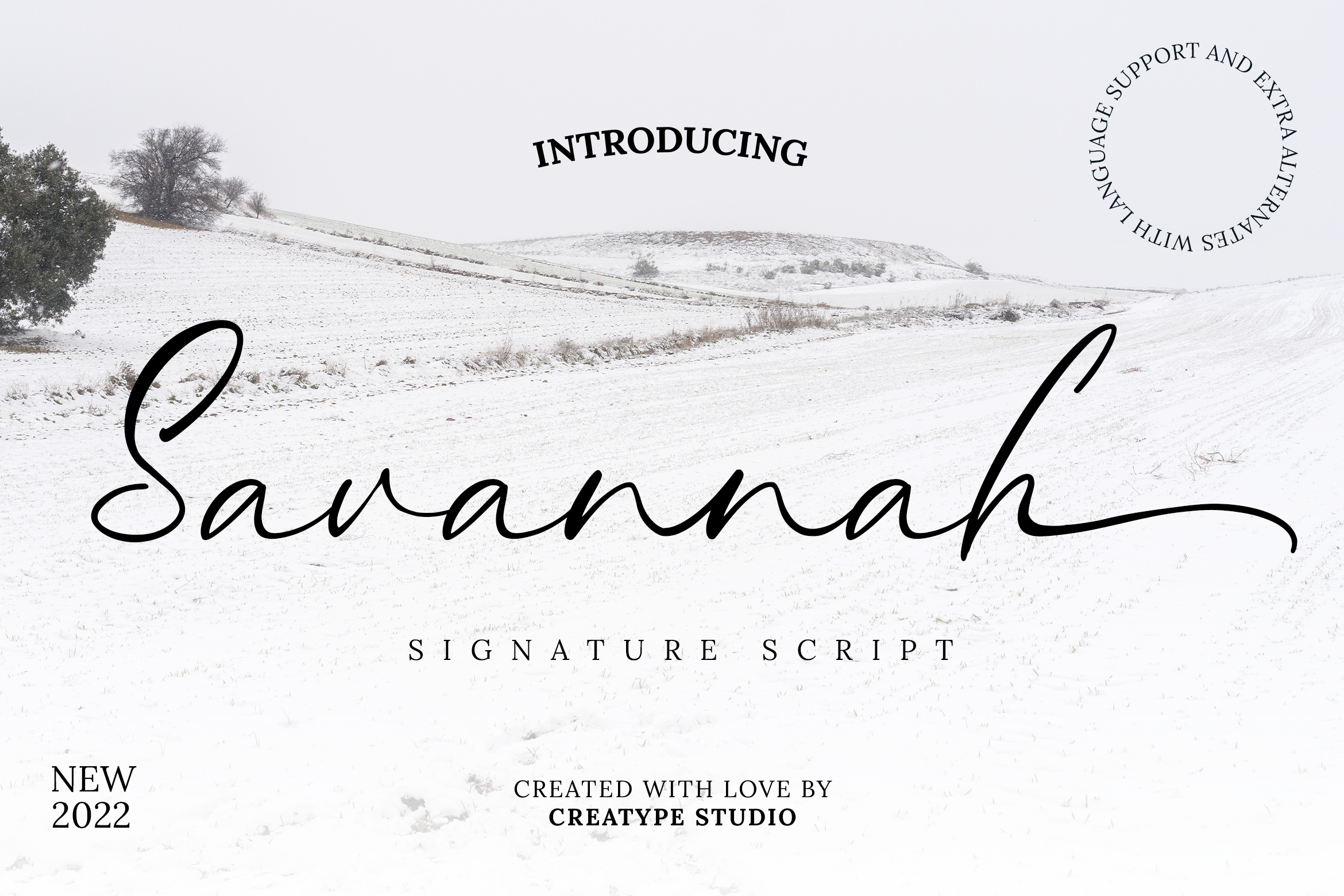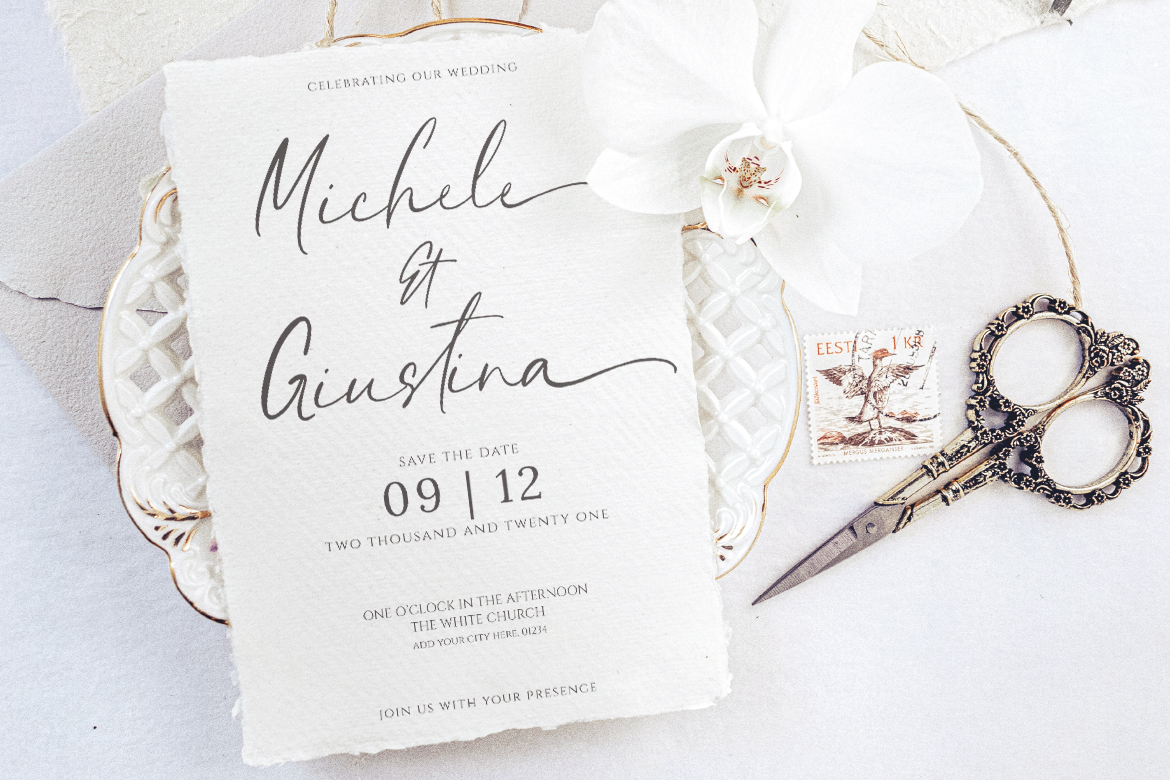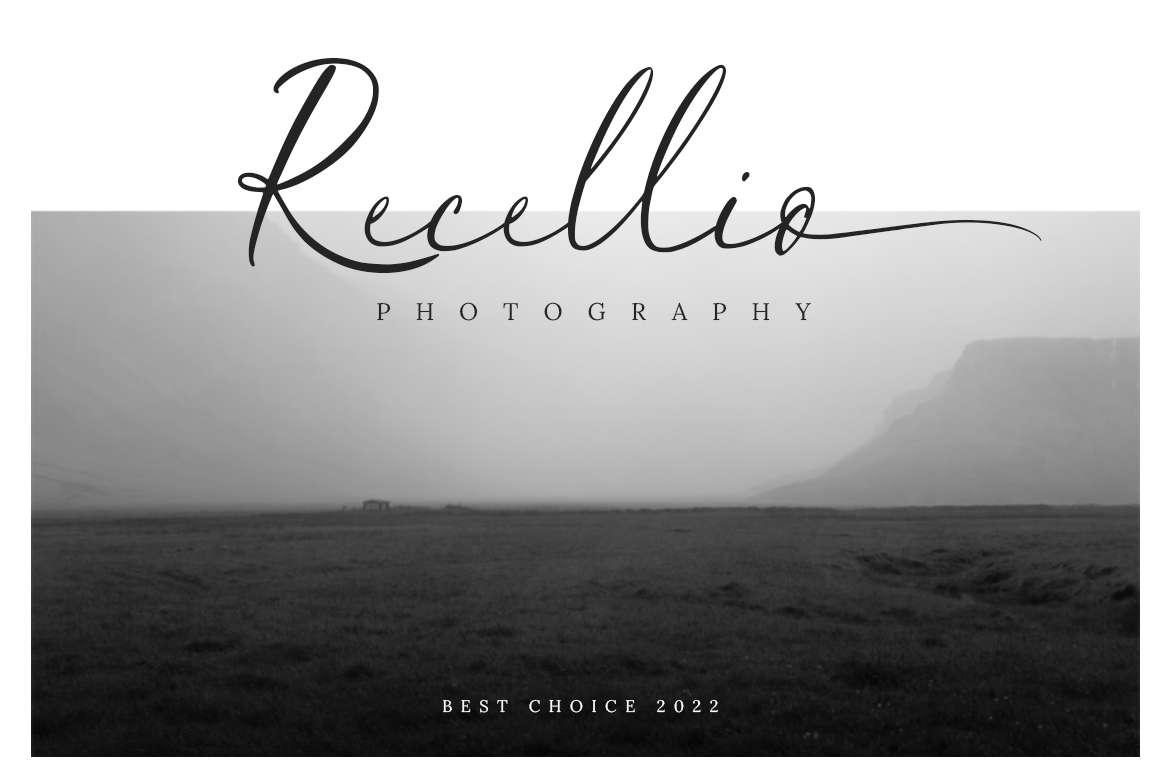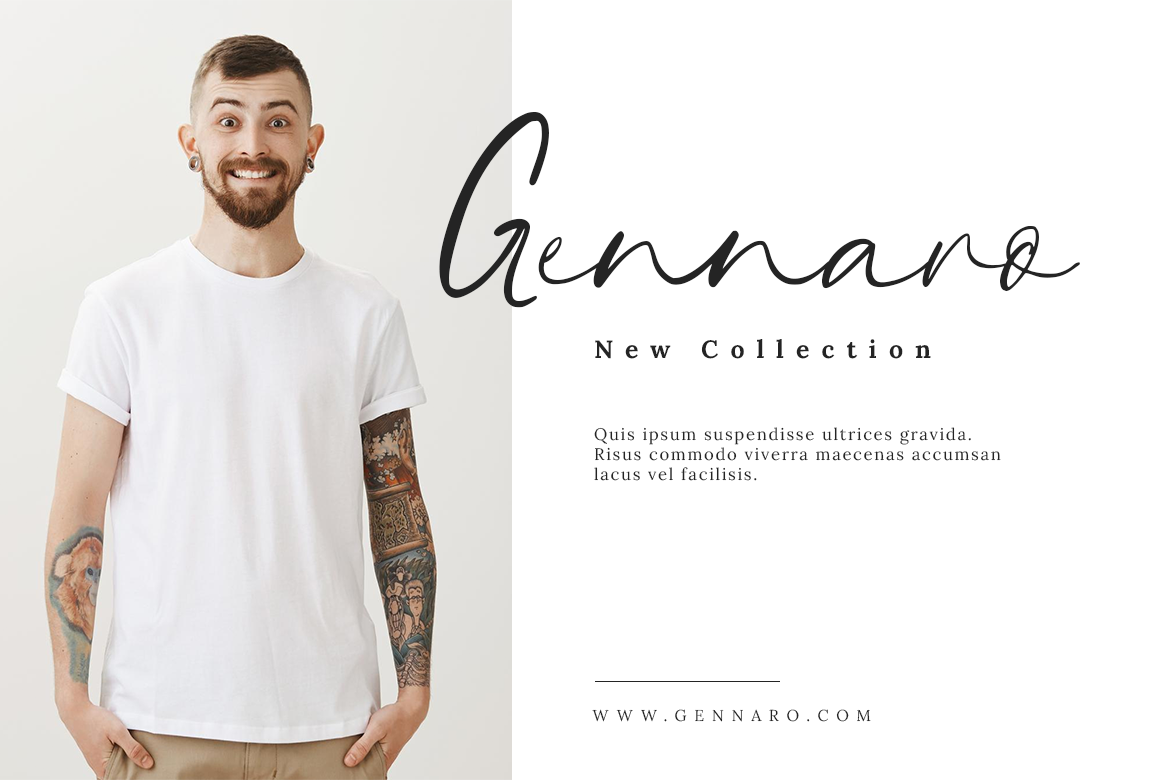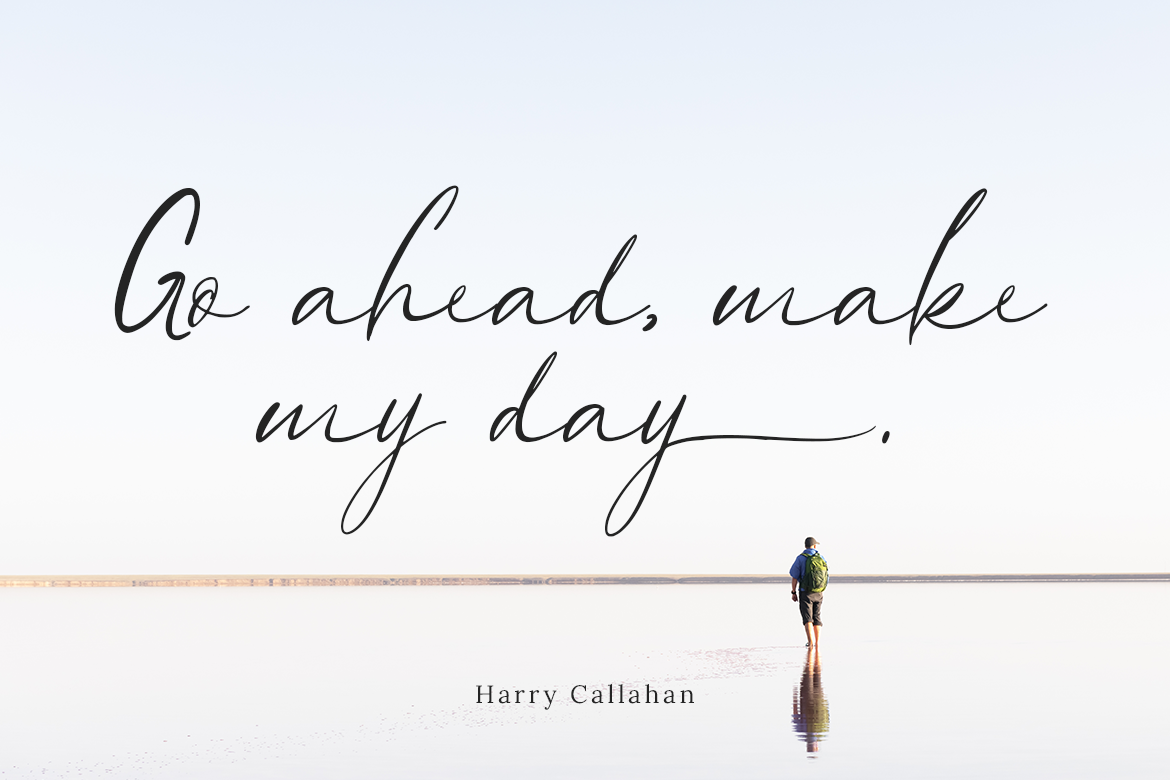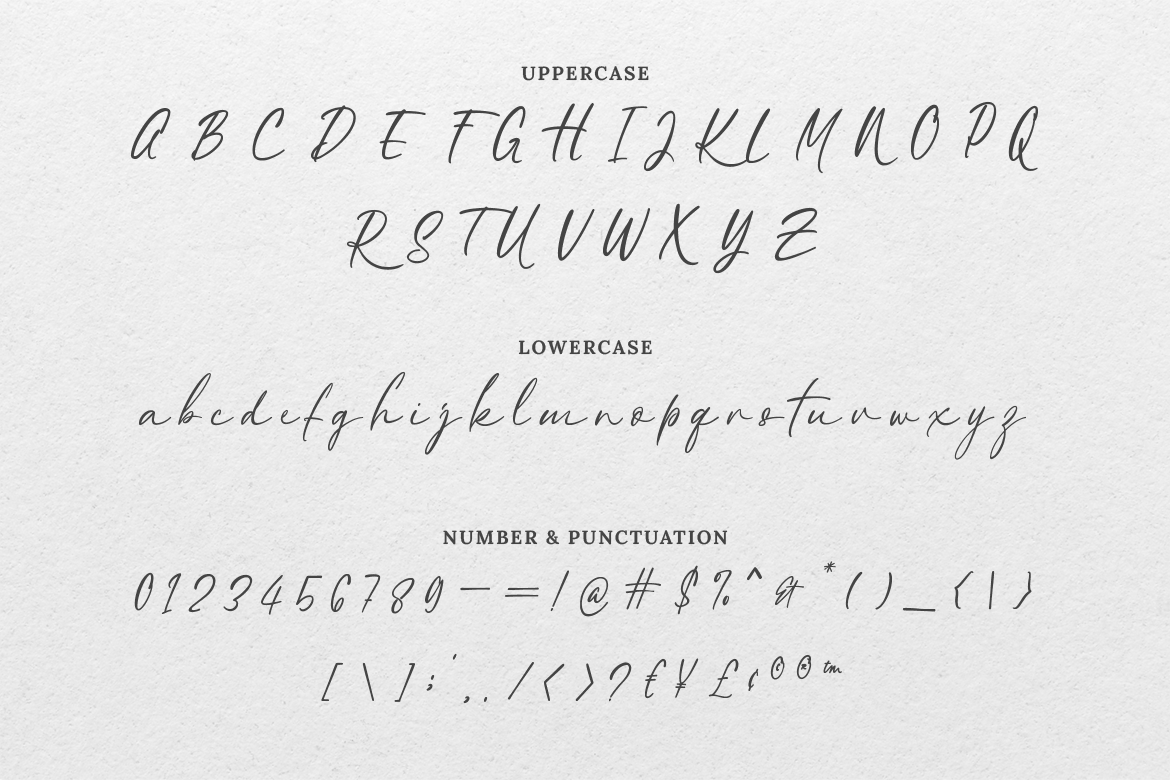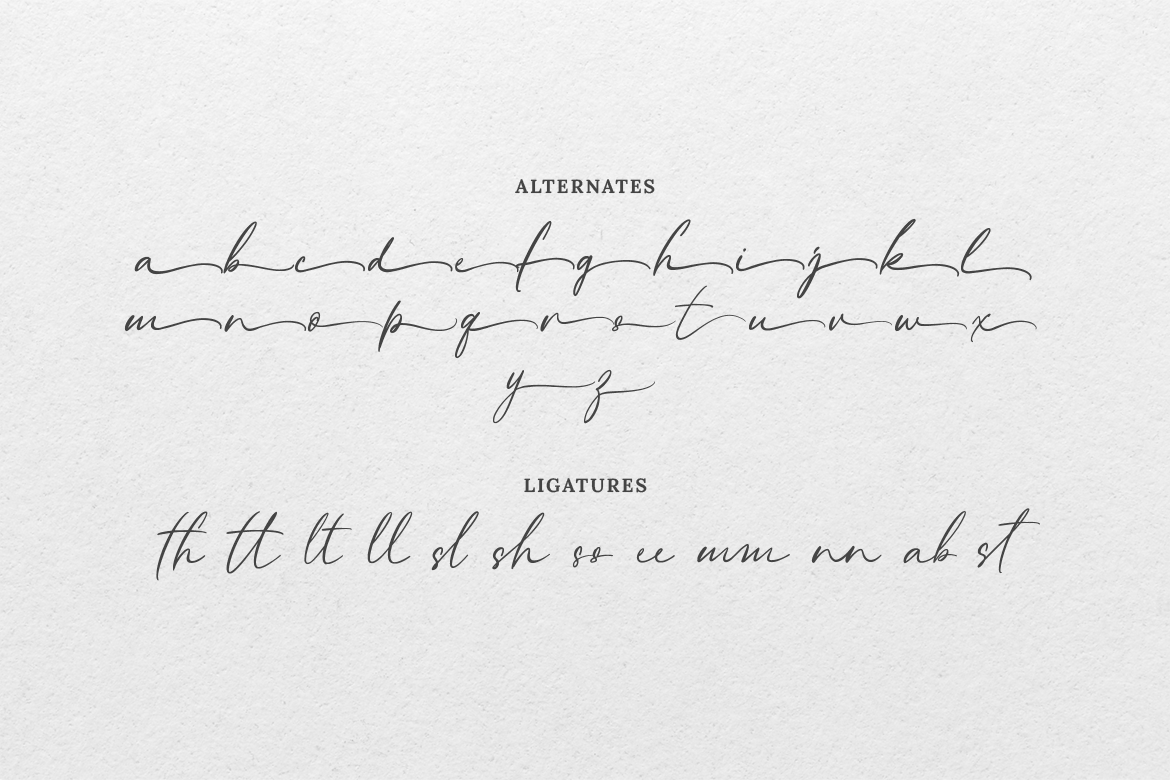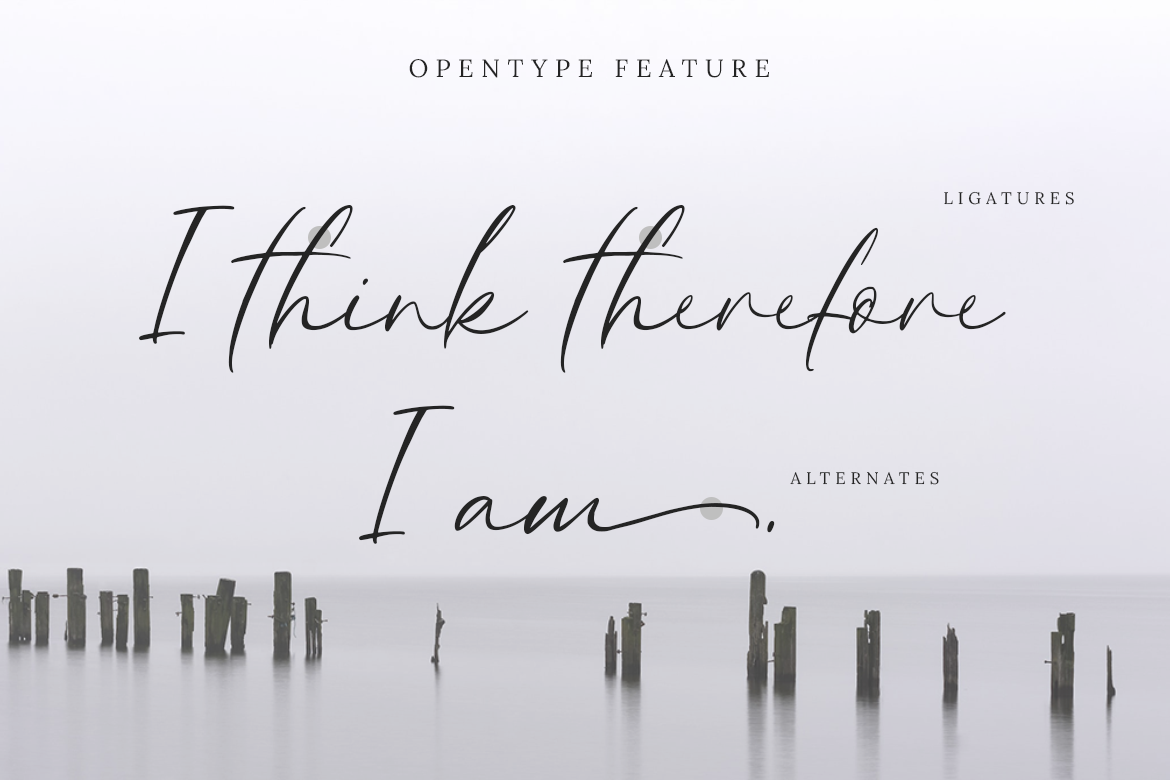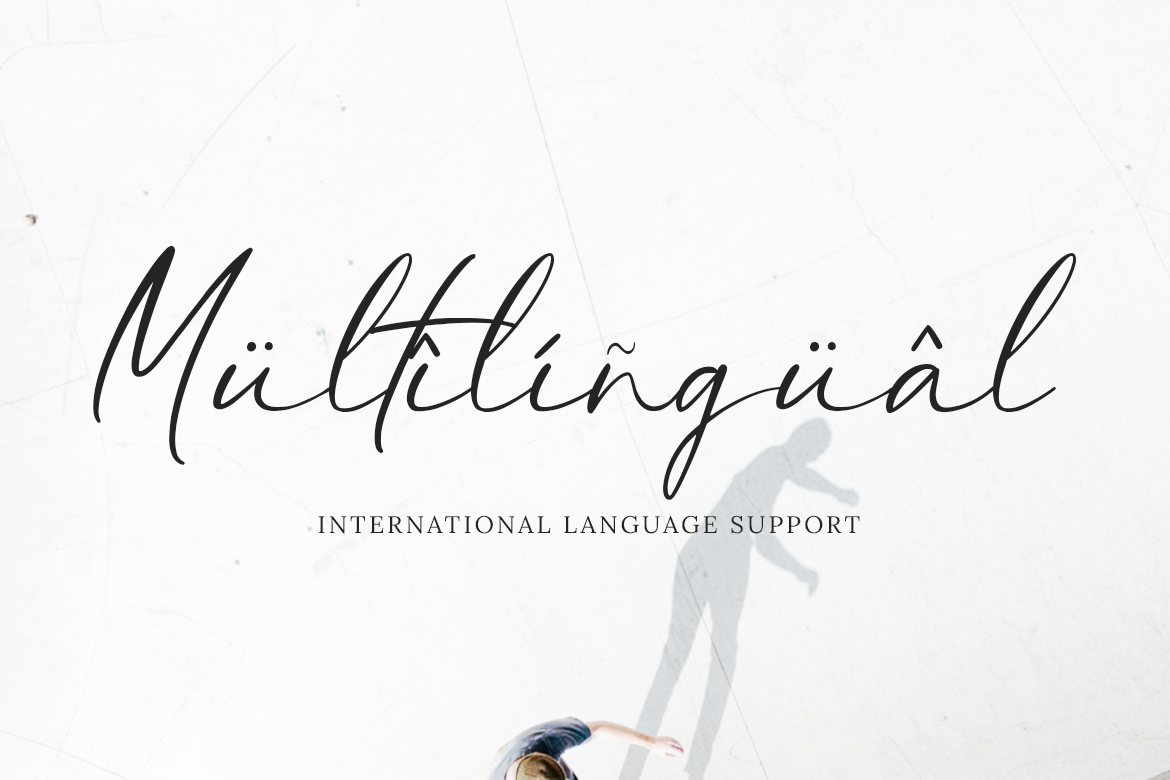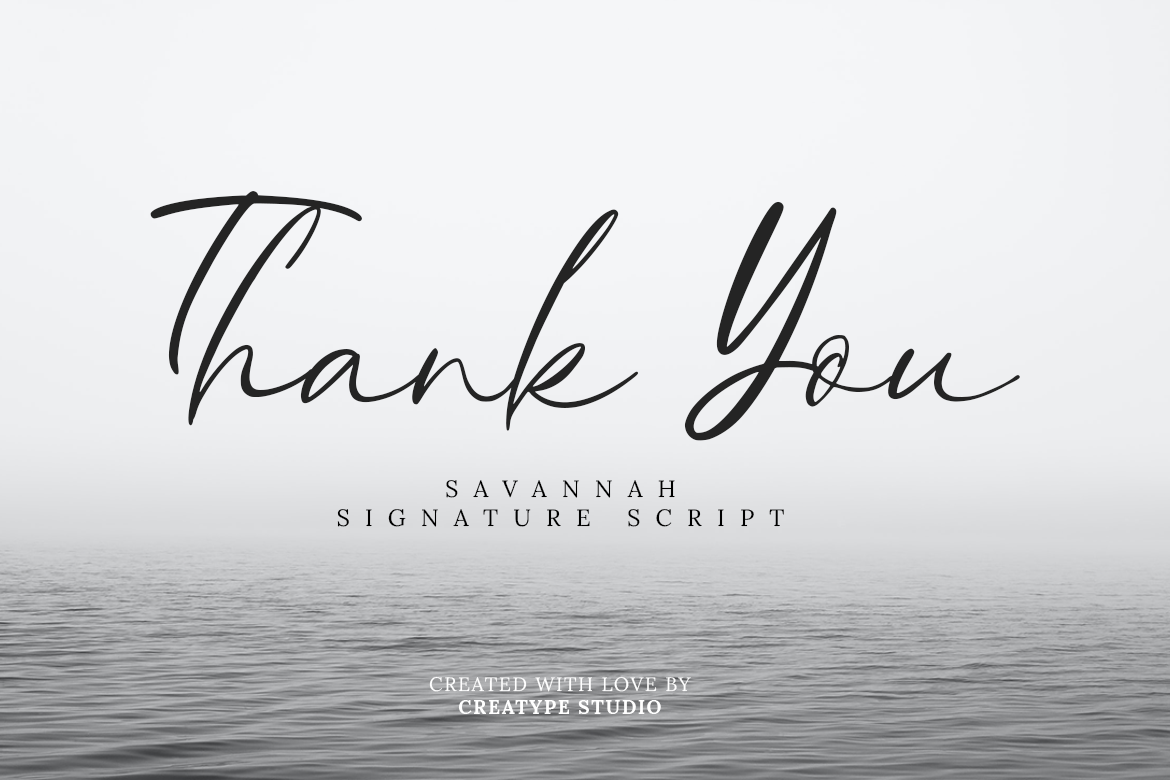
Savannah Signature Script
Simple and sophisticated are two words that describe Savannah. The hand-lettering style gives a classic and chic vibe. Without no over-detailing, it makes it easy to read.
Savannah is perfect for branding projects, logo, wedding designs, social media posts, advertisements, product packaging, product designs, label, photography, watermark, invitation, stationery and any projects that need handwriting taste.